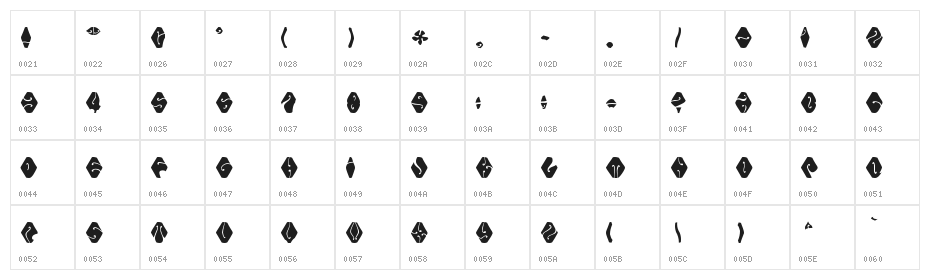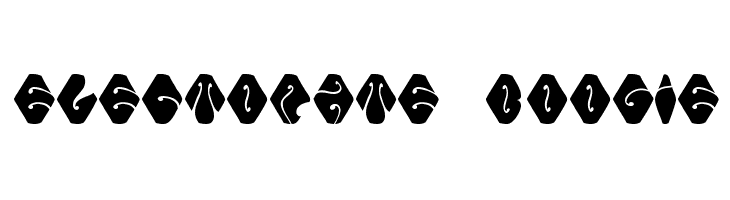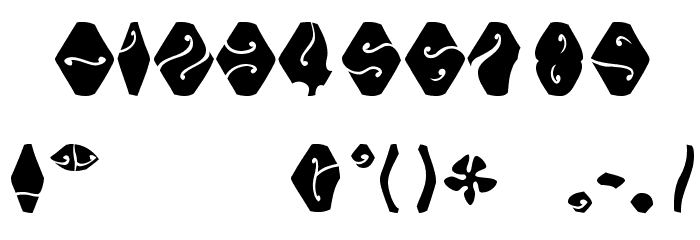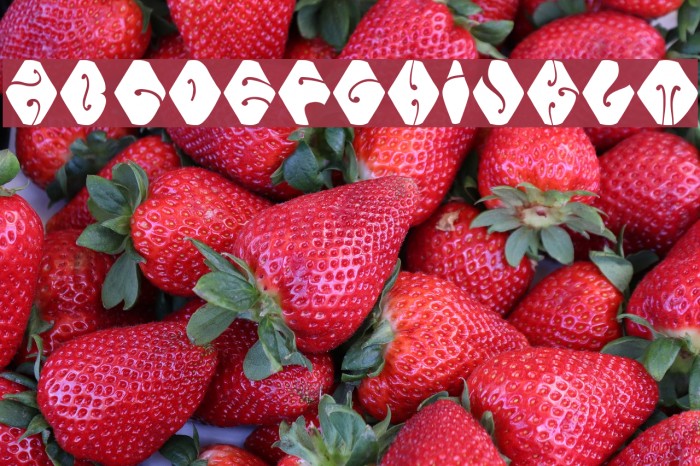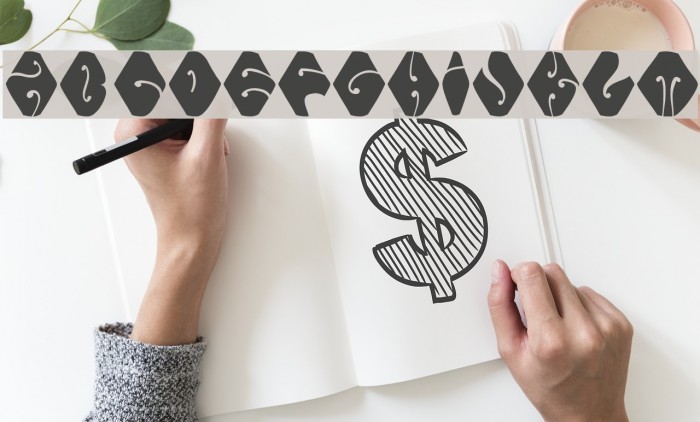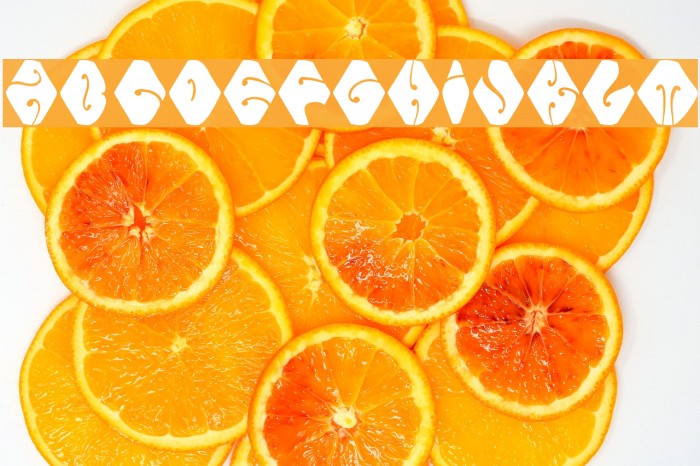
Electorate Boogie Font
| Gesamtstil | Modern, Artistic |
| Anwendungsfall | Logos, Posters, Creative Branding |
| Vorgeschlagene Projekte | Ideal for album covers, posters, branding for creative industries, and any project requiring a bold, artistic statement. |